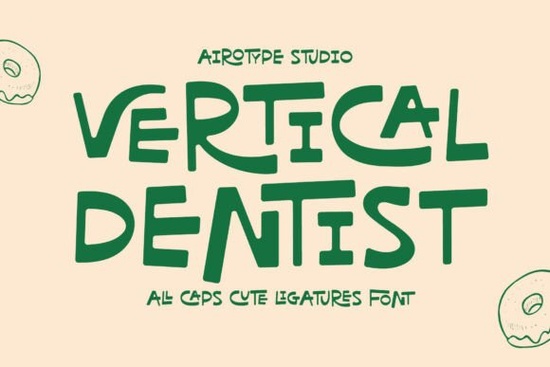
If you're looking for a display font that feels handcrafted, cheerful, and full of character without veering into overly childish territory the Vertical Dentist Font might be exactly what your next project needs. Designed with bold, thick strokes and a slightly irregular rhythm, it brings a sense of playful authenticity to everything from kids’ menus to boutique packaging. Unlike rigid, geometric typefaces, Vertical Dentist leans into “perfect imperfection,” making designs feel approachable and human.
What sets this all-caps font apart is its collection of cute ligatures and alternate characters, all easily accessible thanks to PUA encoding. That means you don’t need special software tricks to unlock swashes or quirky letter combinations they’re built right in and ready to use. The result? A bouncy, organic flow that mimics hand-lettering but with the consistency of a digital typeface.
When should you use Vertical Dentist Font?
This font shines in contexts where friendliness and warmth matter more than formality. Think:
- Children’s products – from activity books to wall decals
- Food and beverage branding – especially bakeries, ice cream shops, or juice bars
- Event invitations – birthday parties, baby showers, or school carnivals
- T-shirt and tote bag designs – where bold, readable text with personality stands out
- Small business logos – for studios, boutiques, or craft brands wanting a handmade vibe
Because of its thick strokes and high visual weight, Vertical Dentist holds up well even at small sizes or on busy backgrounds. But it’s not just about legibility it’s about mood. Pair it with soft pastels or bright, saturated colors, and you’ll instantly create a design that feels joyful and unpretentious.
How does it compare to other playful display fonts?
If you’ve browsed Creative Fabrica’s display font collection, you’ve probably come across similarly spirited options. For example, School Mission offers a chalkboard-inspired aesthetic great for educational themes, while North West leans into retro signage with sharper angles. Blockton Varsity channels classic athletic energy, and Dolce Love wraps sweetness into every curve ideal for wedding or dessert branding.
Then there’s Picky Rabbit, another whimsical choice with a storybook charm. But Vertical Dentist stands out for its unique vertical emphasis and slightly off-kilter baseline, which gives words a gentle hop without sacrificing readability. It’s less “cartoon” and more “hand-painted sign outside a neighborhood café.”
Tips for using Vertical Dentist effectively
Like any display font, Vertical Dentist works best when used intentionally not everywhere at once. Here’s how to get the most out of it:
- Limit usage to headlines or short phrases. Its personality-packed design can overwhelm body text.
- Pair it with simple sans-serifs. Clean fonts like Montserrat or Lato let Vertical Dentist take center stage without visual competition.
- Use color thoughtfully. Try mustard yellow, sky blue, or mint green to enhance its friendly tone avoid dark, moody palettes unless you’re going for intentional contrast.
- Experiment with ligatures. Open your design software’s glyph panel (or use apps like Canva Pro) to access those fun alternate characters that give your text extra bounce.
- Avoid tight spacing. The font’s natural rhythm needs room to breathe slightly increased letter-spacing often improves balance.
For print-on-demand sellers, this font converts beautifully to physical products. Whether you’re designing enamel pins, mugs, or nursery art prints, Vertical Dentist adds a tactile, artisanal quality that customers associate with care and creativity.
Ready to try it?
If your brand or project calls for something upbeat, handmade-feeling, and full of heart without being cutesy Vertical Dentist is a smart, versatile pick. Just remember: its strength lies in restraint. Use it where it matters most, and let its quirks do the talking.
- Is my message lighthearted or community-focused?
- Am I designing for kids, food, crafts, or local businesses?
- Do I want my typography to feel human, not corporate?
If you answered yes to any of these, Vertical Dentist could be your new go-to display font.